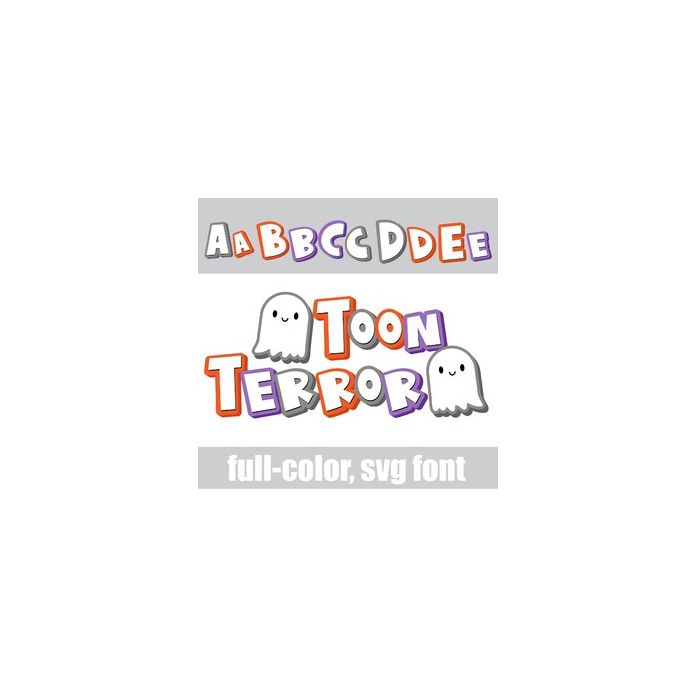
This full-color font features a toon-like style in a Halloween color palette. Type the great than and less than glyphs to get the cute, shadowed ghosts. There is an alt case w/ additional colors you can access through your system or Silhouette's glyph map.